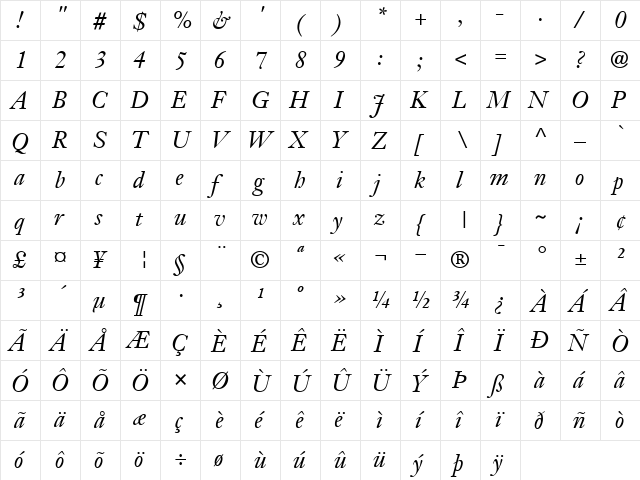
JansonText56 RomanItalic
Design Context for JansonText56 Typeface
JansonText56 offers clean, dependable letterforms without strong stylistic allegiance, making it a practical choice for designers who need flexibility. The dynamic lean of this cut emphasises speed and emphasis in any layout.
Pro Tip: Use JansonText56 for emphasis, pull quotes, and subheadings where its slanted energy can add rhythm to the layout.